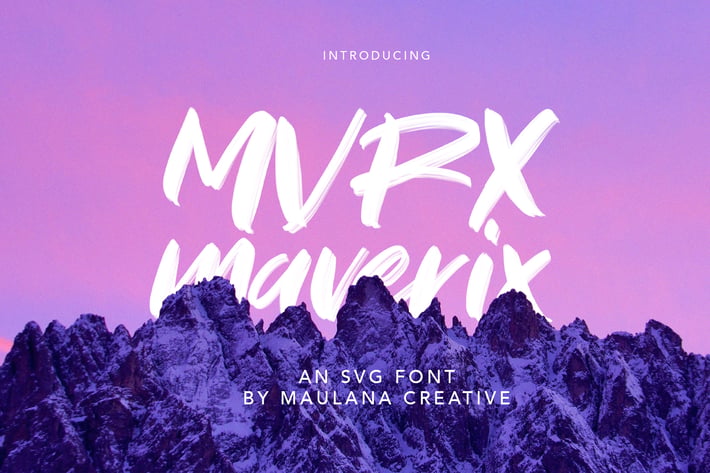
MVRX Maverix SVG Brush Font
Give your designs an authentic brush handcrafted feel. "MVRX Maverix SVG Brush Font" is perfectly suited to signature, stationery, logo, typography quotes, magazine or book cover, website header, flyer, clothing, branding, packaging design and more.